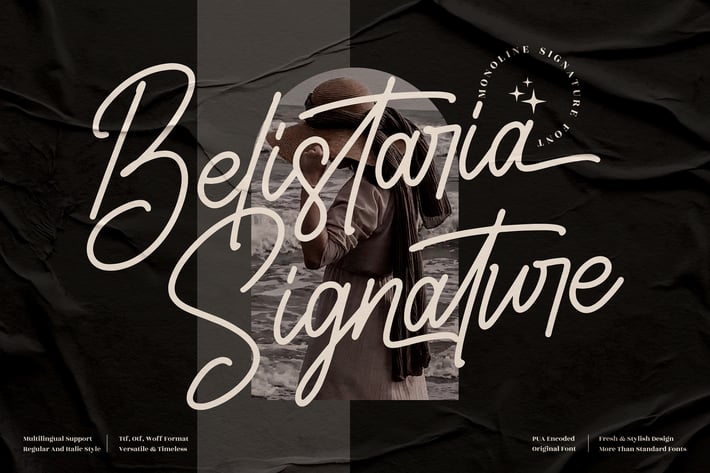
Belistaria Signature Monoline Font
Belistaria Signature is a sleek and elegant monoline script font that embodies sophistication and individuality. With its refined strokes and graceful flow, this typeface delivers a modern handwritten look that feels authentic yet polished. Designed to bring personality to your projects, Belistaria adds a timeless sense of style perfect for both digital and printed creations.
Monoline handwritten style with smooth curves
Includes Regular and Italic variations
Versatile and timeless aesthetic
Where elegance meets expression — Belistaria turns handwriting into timeless sophistication.